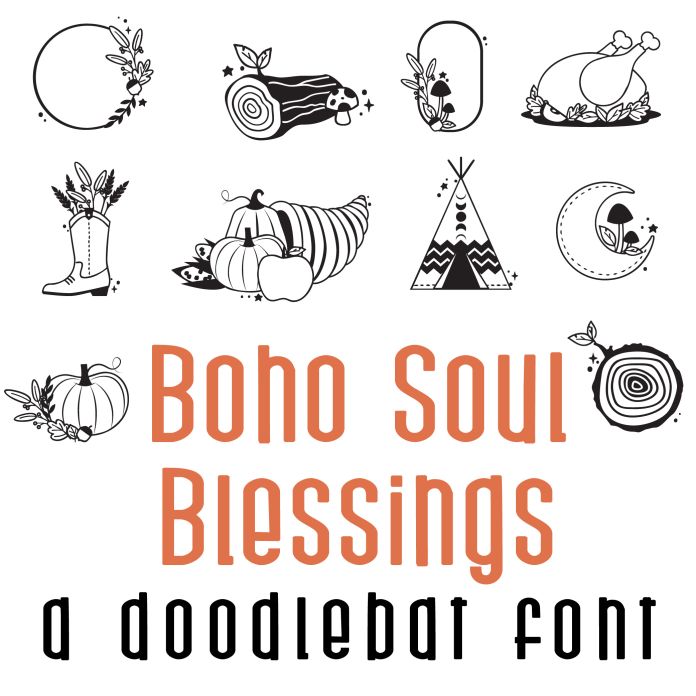
This beautiful doodlebat font features 26 Bohemian-style Fall themed imagery. Perfect for cards, crafts, gifts, decor, planner stickers, scrapbook pages, classrooms and more!